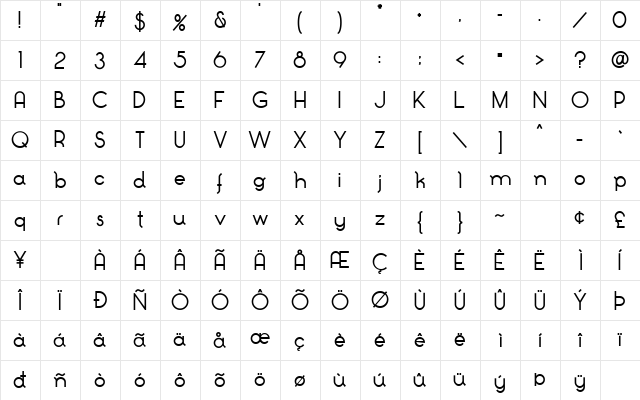
Nobstars Regular Regular
| Designer | Holis Majid |
Design Context for Nobstars Regular Typeface
Nobstars Regular is a composed and adaptable typeface that performs quietly and consistently across a wide range of design contexts.